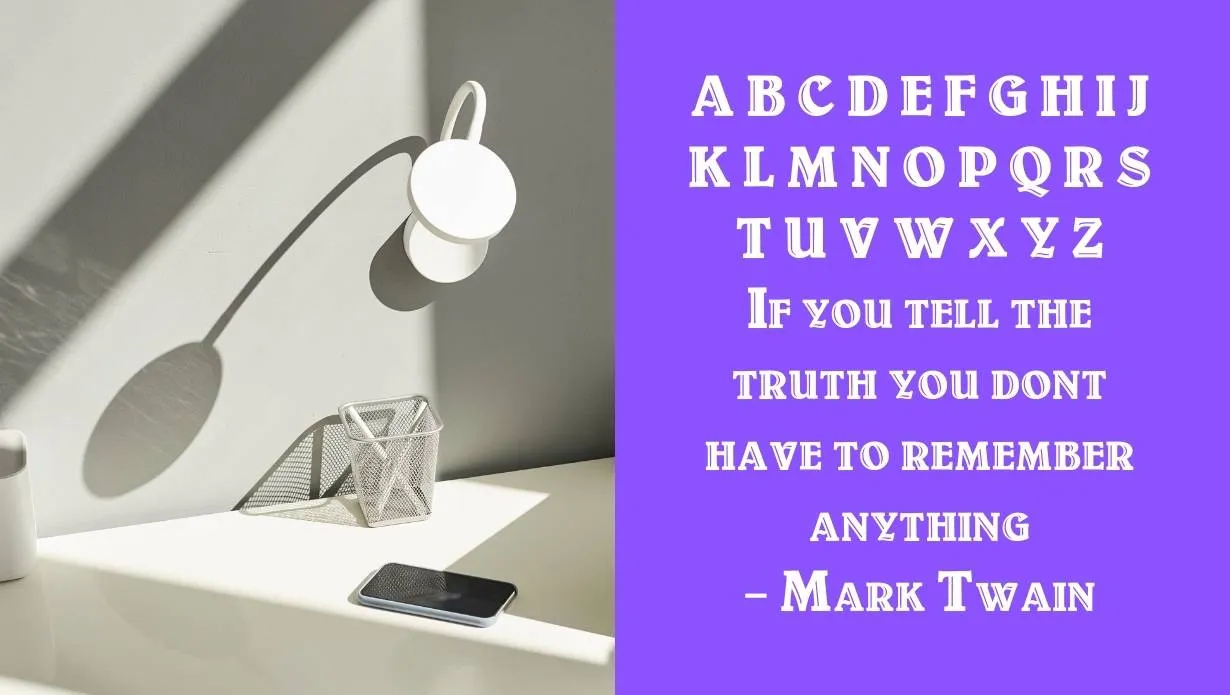
Today we introduce the very famous typeface that is known as Titulo Font. This awesome typeface belongs to the display font family. The creator of this typeface was LletresCAT. This stunning font was released in 2017. The aim of this typeface is to provide a unique and modern look to the headlines of products and services.
This typeface comes in two styles: Regular and Bold. Each style contains 402 characters including uppercase, lowercase, numerals, and punctuation marks. This is the reason for its popularity. You can also use billboard font which is closest to this font family.
| Name | Titulo Font |
| Designer | LletresCAT |